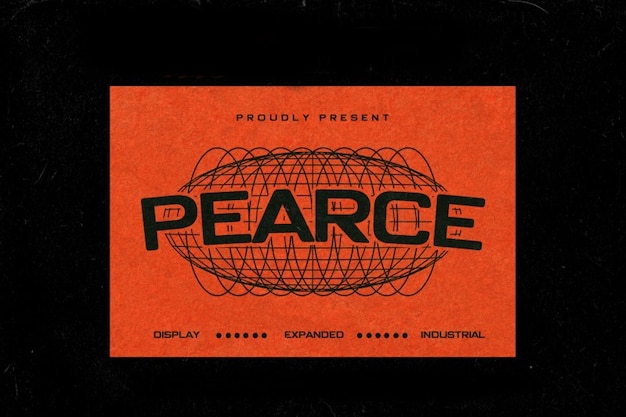
Pearce Font
Drizy Studio
Pearce, an industrial-inspired font, merges retro vibes with simplicity. Its clean lines and straightforward design evoke an industrial-era charm. Ideal for vintage branding and signage, Pearce embodies a nostalgic simplicity that harks back to the retro era while maintaining a modern edge. This font brings a touch of vintage industrial aesthetics, perfect for designs seeking a blend of classic simplicity and retro appeal.